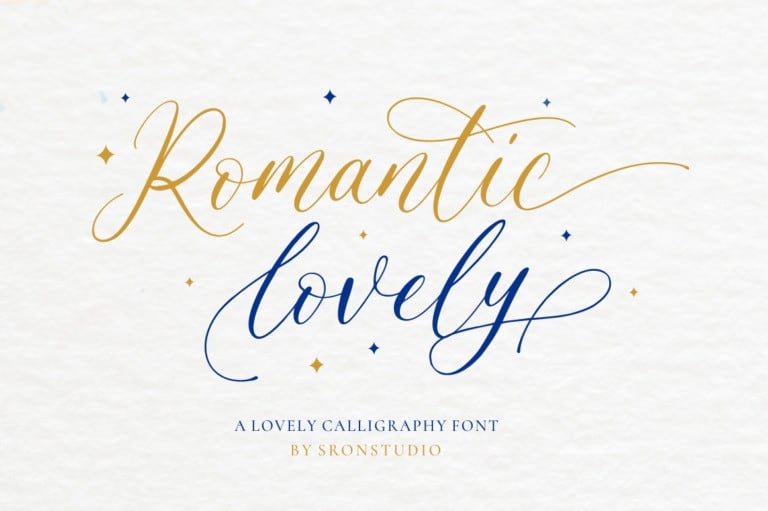
Romantic Lovely Font
Romantic Lovely Calligraphy Font is a clean and elegant calligraphy font with lots of alternate swashes. This font will perfect for adding a romantic and lovely touch to your design. This font will be perfect to use for all your upcoming Wedding DIY:s or other quote based DIY:s or anything Valentine’s themed.
Romantic Lovely Calligraphy Font